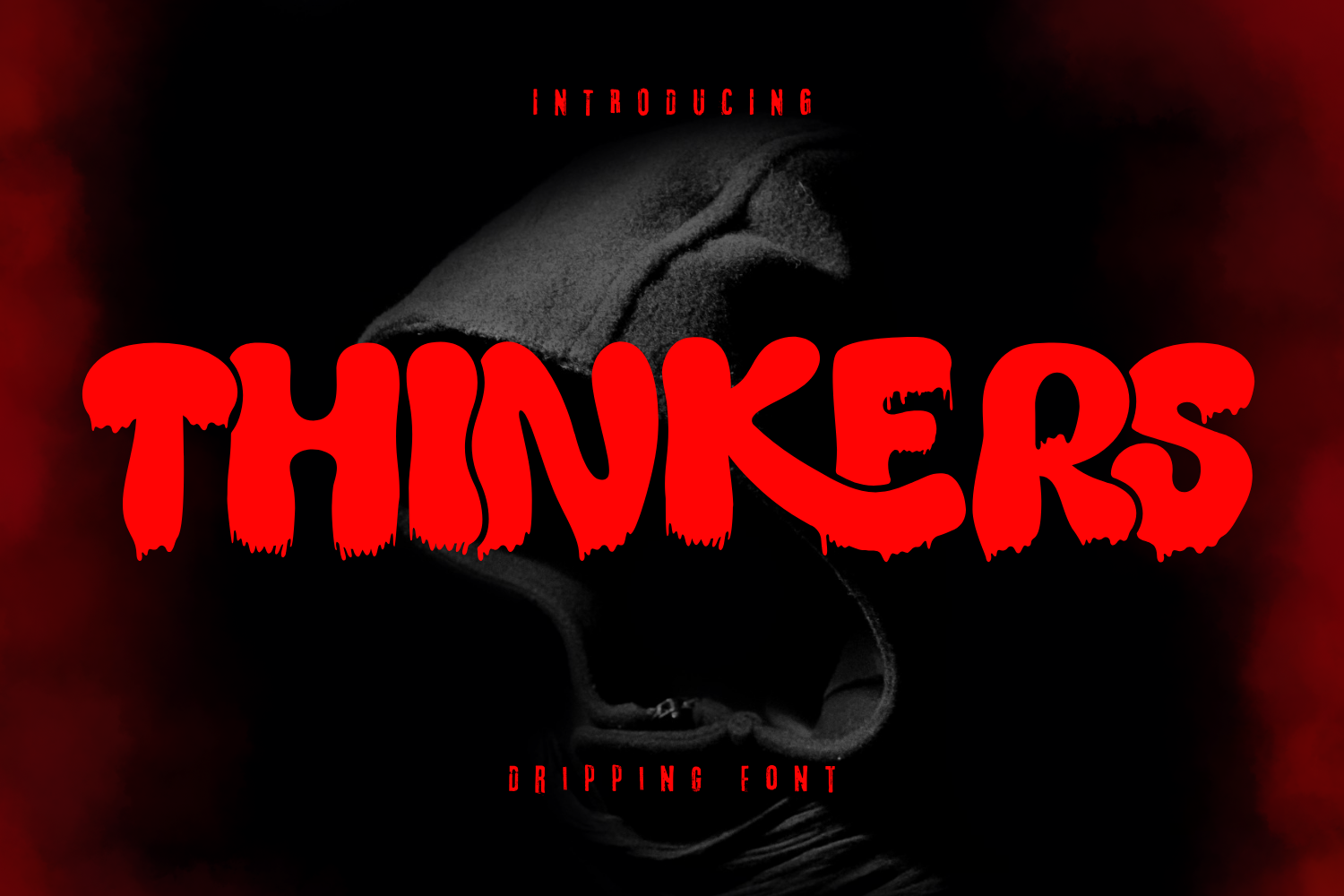
Thinkers Dripping Font
Thinkers Dripping Font is a bold dripping display font that oozes personality — literally. Inspired by vintage horror posters and Halloween classics, this font melts down your screen with playful menace and eerie charm. Each character looks like it’s been painted in thick liquid, bleeding into the next, creating a highly expressive and unforgettable visual style.
Whether you're designing a spooky party invitation, a haunted house sign, or a thriller movie poster, Thinkers Dripping delivers that gooey, gruesome energy you're looking for.
- Accented Characters
- Organic drip terminals and smooth blob-like curves
- Ideal for horror, Halloween, slasher films, rock album covers, or bold branding